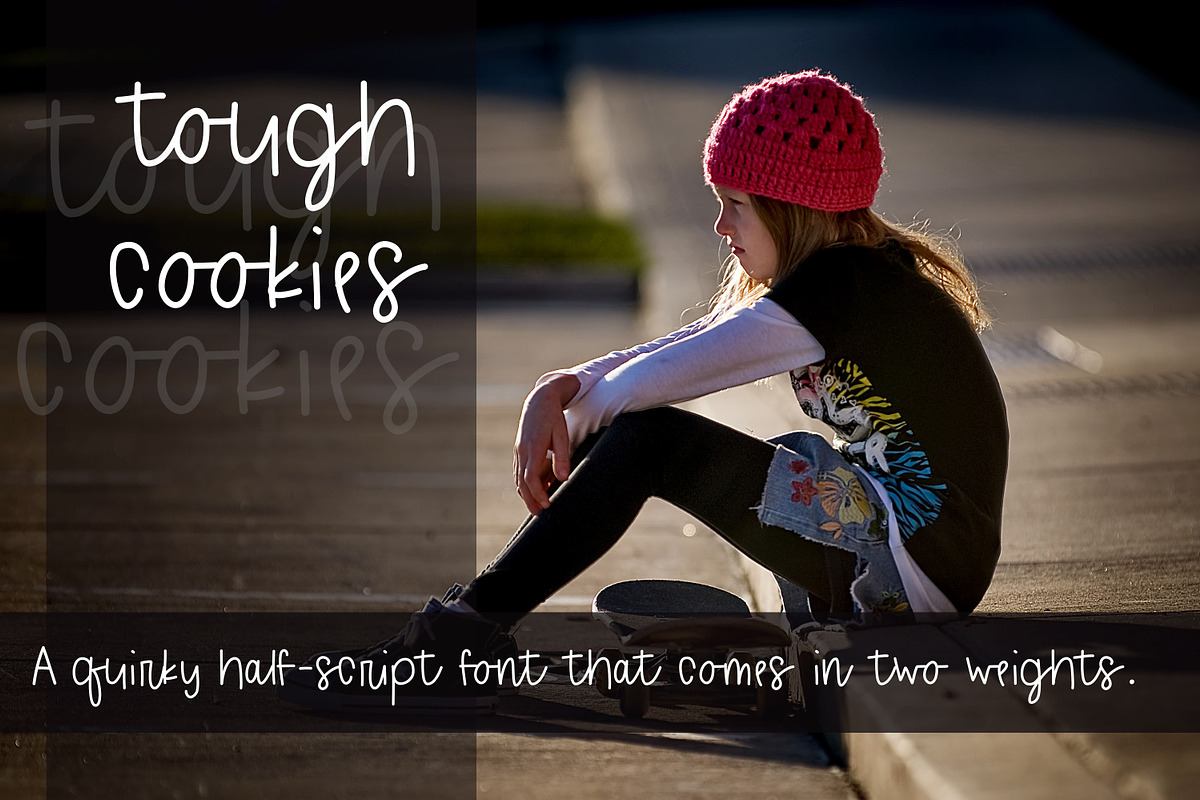
Tough Cookies | A young half-script Free Download
Tough Cookies Font Free Download is a youthful and playful half-script typeface that brings personality and fun to your designs. With its bold strokes, slightly slanted letters, and casual flair, this font is perfect for branding, product labels, social media posts, event invitations, and more.
It combines the elegance of a script with the strength of a bold design, making it ideal for projects that require a creative, vibrant touch. Whether you’re designing for a modern brand or adding a whimsical style to a creative project, Tough Cookies delivers just the right amount of charm. Tough Cookies Font Free Download lets you try this energetic script in personal projects before purchasing a commercial license.
Add a dash of fun and energy with Tough Cookies — the font that’s as bold as it is sweet.